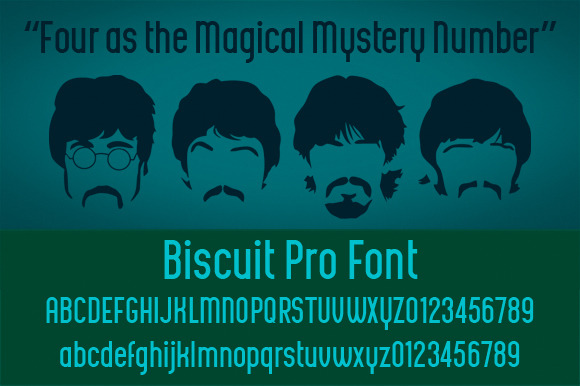
Biscuit Pro Font
About this font family Biscuit is a rounded unique typeface, clearly and easy readable with upper- and lowercase. Perfectly applicable for big or bold tekst pages. This font family has an excellent legibility - both in print and on the web - and an optimized kerning. Biscuit is intentionally designed to be used as a display typeface in publications, packaging and al of your artwork and design. It’s warm and cosy character suits extraordinary well for modern or vintage typography and corporate design.